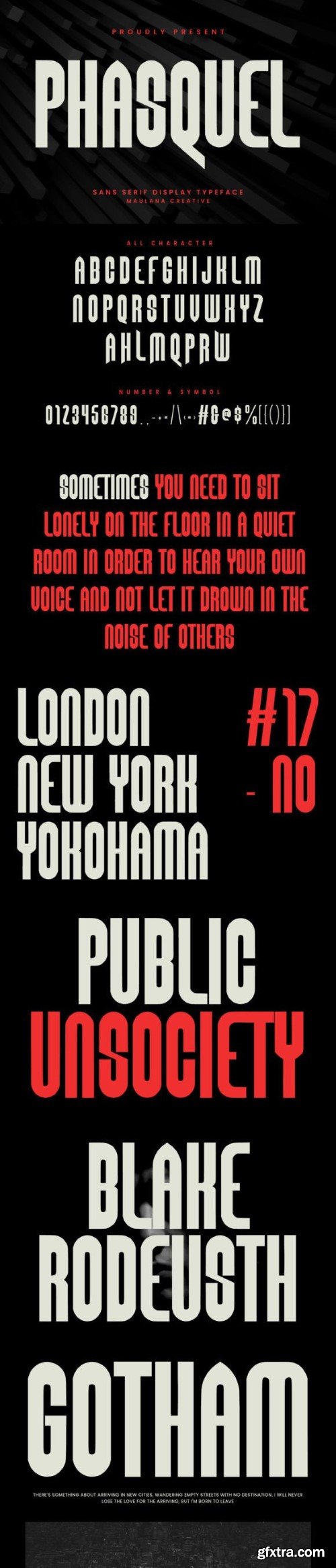
Phasquel Font
Phasquel represents a chic and trendy sans-serif typeface that captures a sense of sophistication and grace. Featuring sleek lines and delicate curves, it radiates a contemporary and simplistic aesthetic. Ideal for branding, editorial layouts, and high-end goods, Phasquel brings an element of elegance and sophistication to every design endeavor.